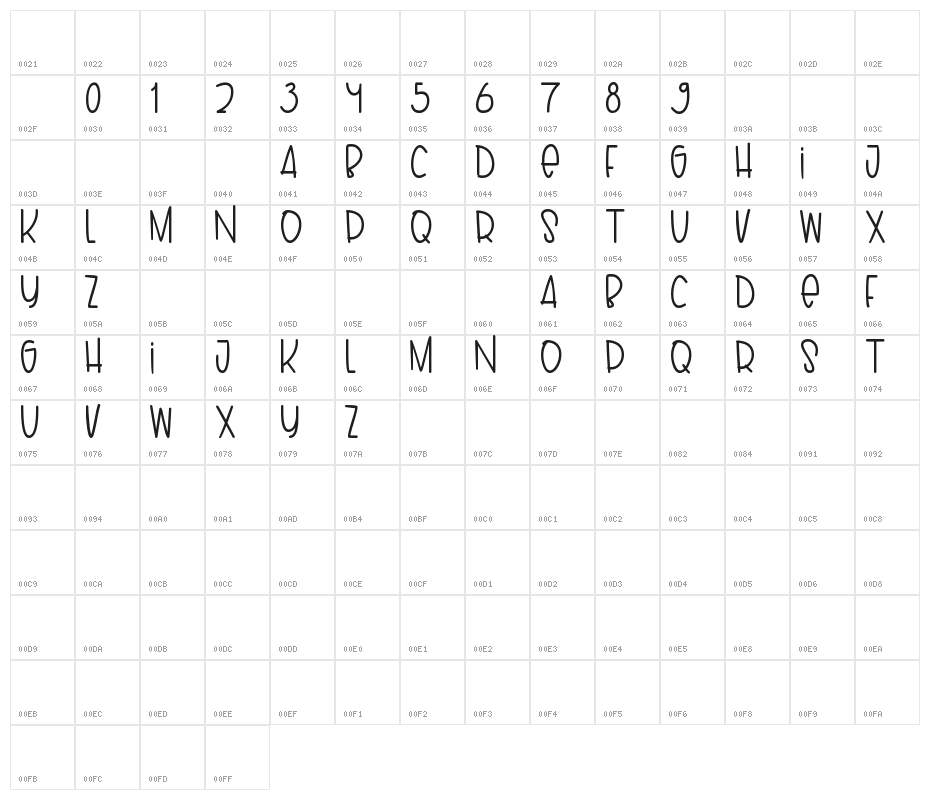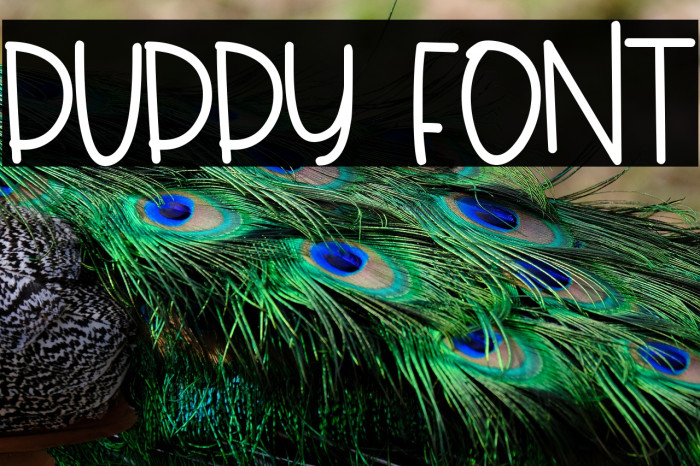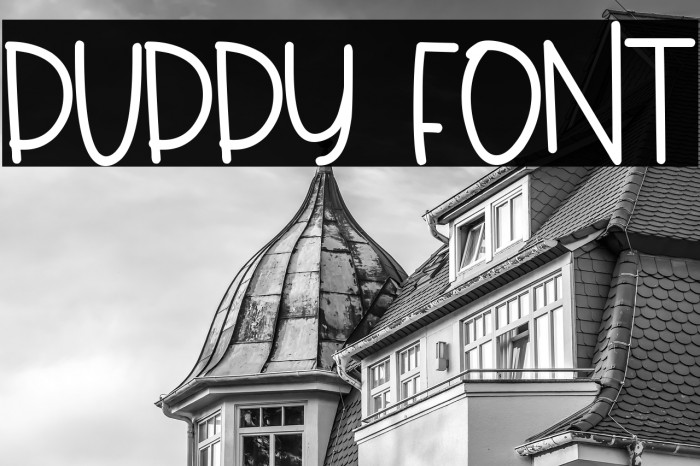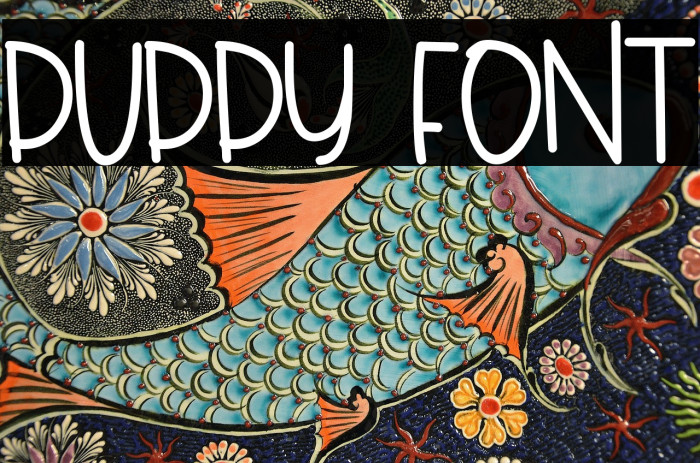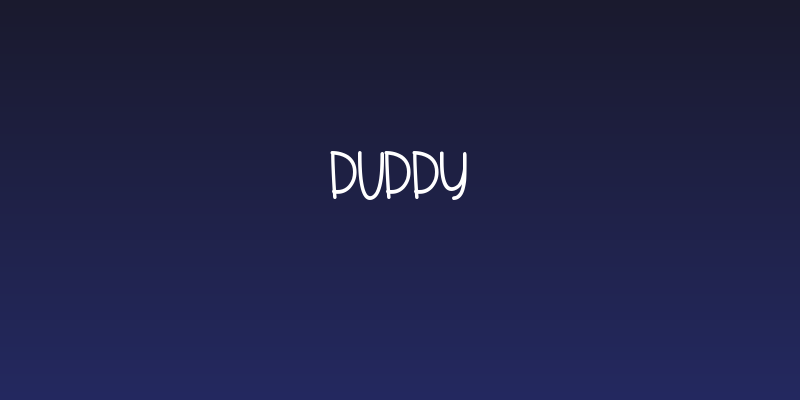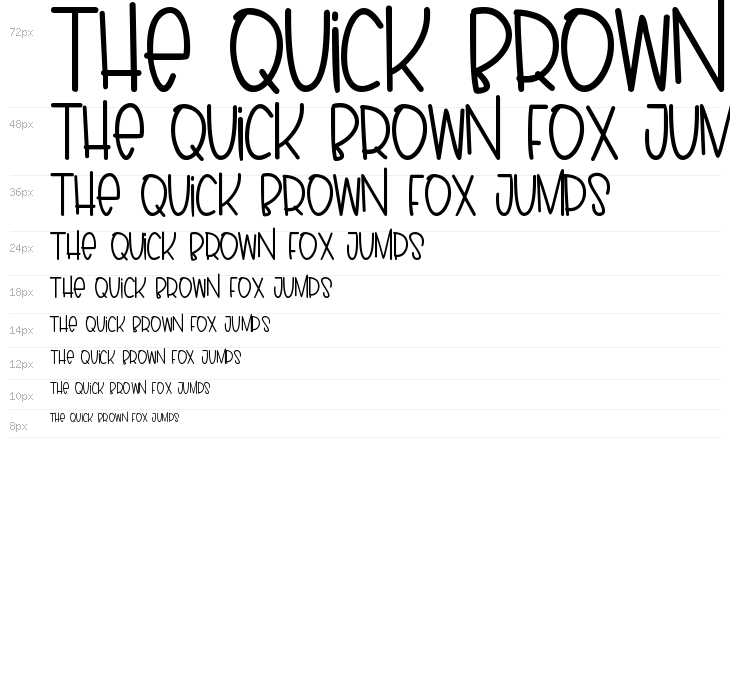
Puppy Font
Puppy Description
This playful and whimsical font features tall, narrow letters with a hand-drawn appearance. The strokes are smooth and rounded, giving it a friendly and approachable feel. The uppercase and lowercase letters maintain a consistent style, with slight variations that add to its charm. The numbers are equally playful, with a consistent height and style that matches the alphabet. This font is perfect for projects that require a fun and informal touch, such as children's books, greeting cards, or playful branding. Its unique style makes it stand out, while still being legible and versatile.
| Proposed Projects | Children's books, greeting cards, playful branding, informal invitations. |